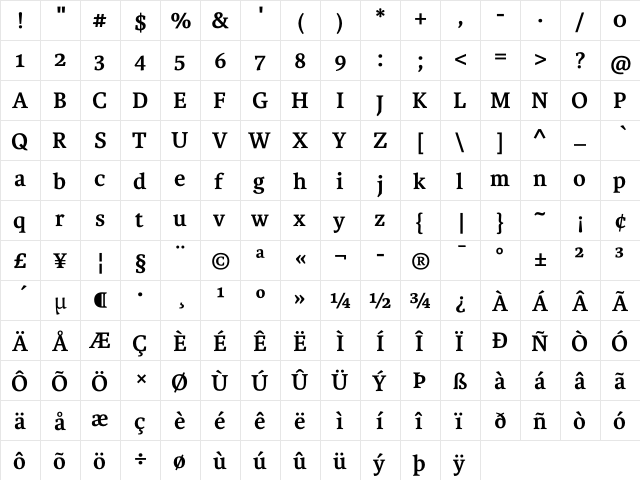
Karmina Bold
| Foundry | Type-Together |
| Designer | Jose Scaglione, Veronika Burian |
Design Context for Karmina Typeface
Karmina offers clean, dependable letterforms without strong stylistic allegiance, making it a practical choice for designers who need flexibility. The heavy weight commands attention and anchors typographic hierarchies.
Pro Tip: Use Karmina in both headline and body roles to test its range before committing to a single application.